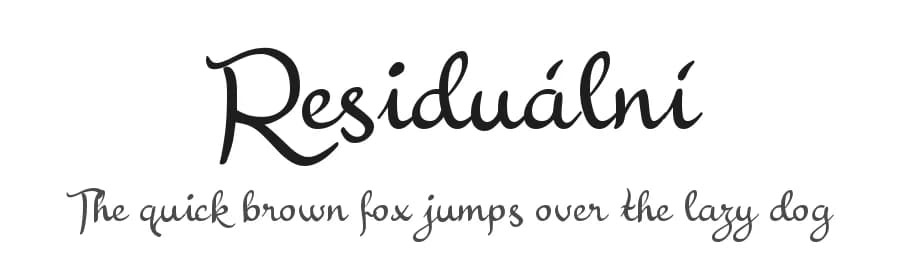
About Residuální Font
A curly font imitating brush calligraphy with really big upper case characters.
The big underline swash is mapped as tilde character (~).
Residuální Font
by Vít Čondák